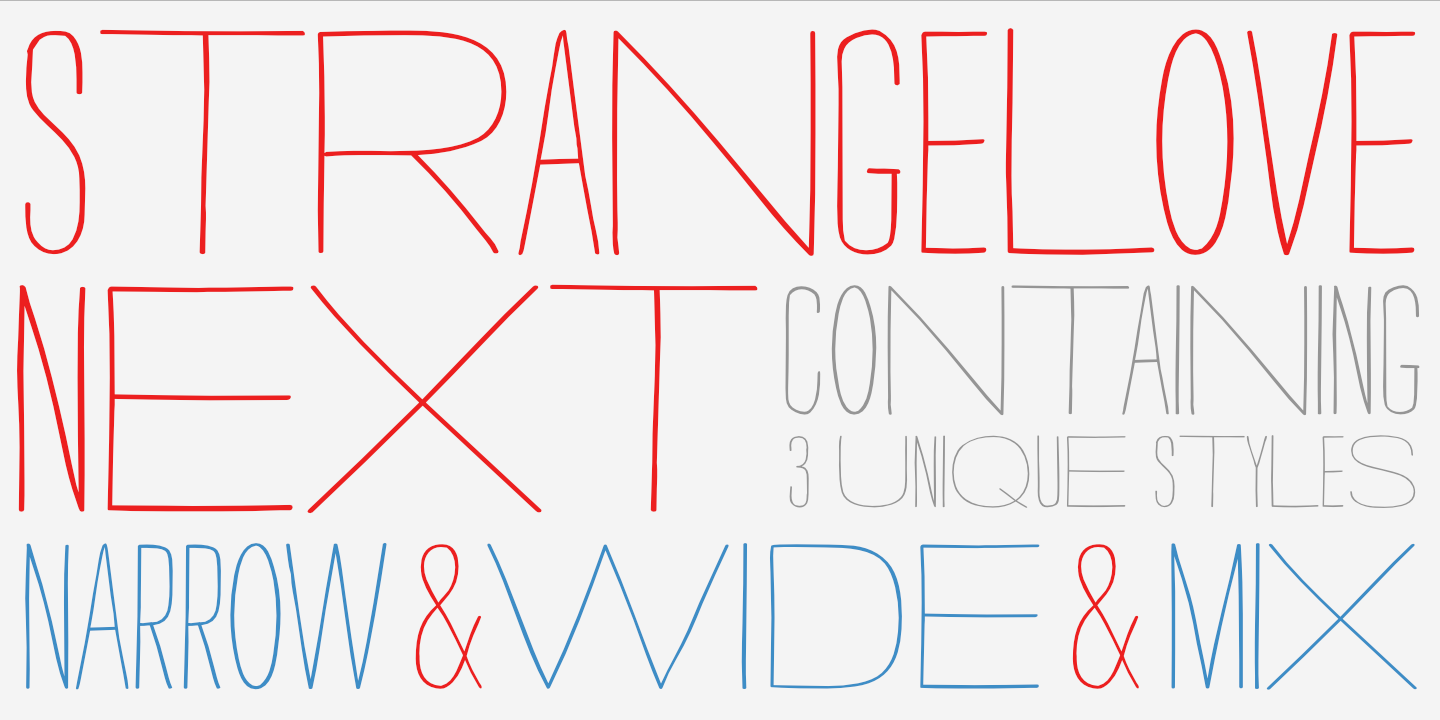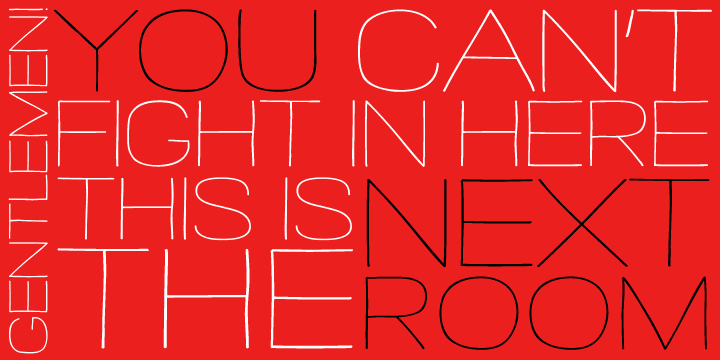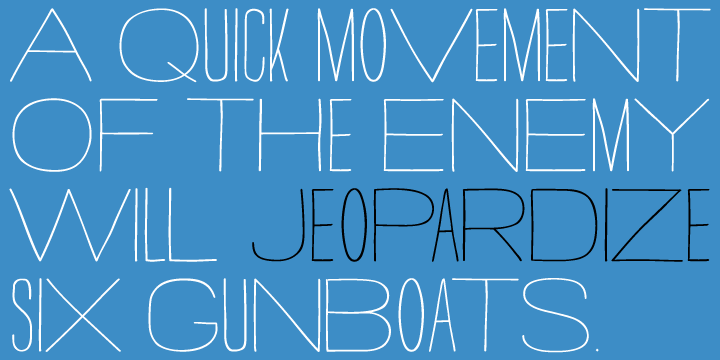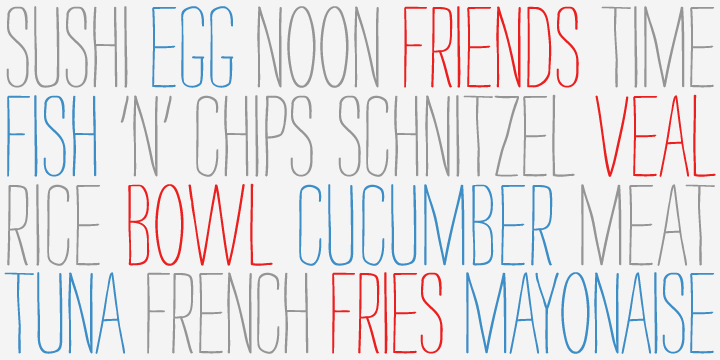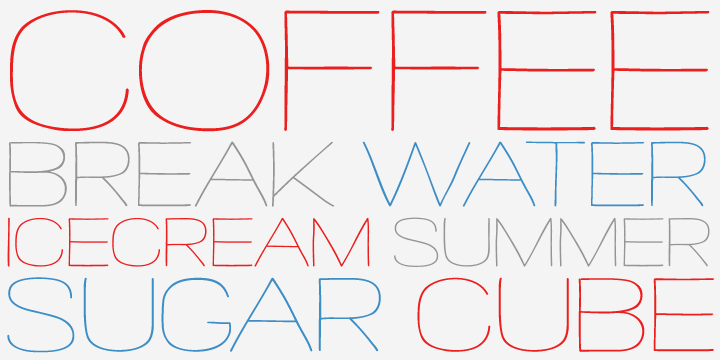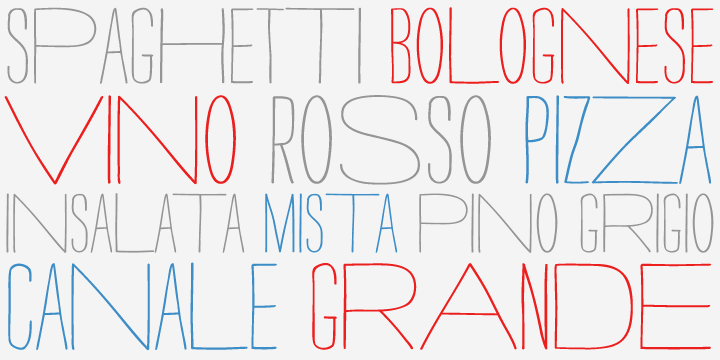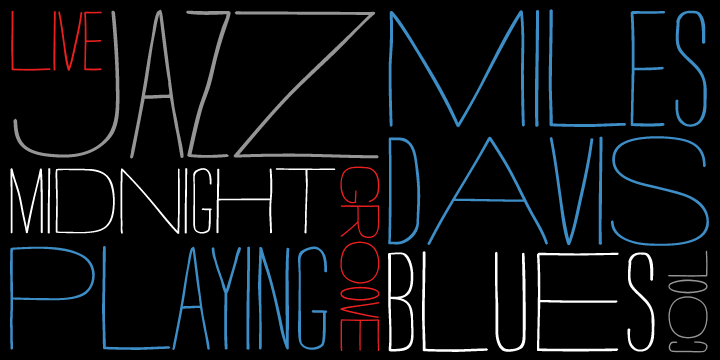
‘Strangelove Next’ is inspired by Stanley Kubrick’s movie ‘Dr. Strangelove’. The original titles were designed by Pablo Ferro, who is one of the most acclaimed film title designers, especially famous for his hand-drawn lettering. The Strangelove Next family contains the highly successfull narrow version, a new expanded version and finally a mix of the first two, which gives it a surprising and unpredictable look. All three styles have more glyphs than the original family.
Designer: Marcus Sterz